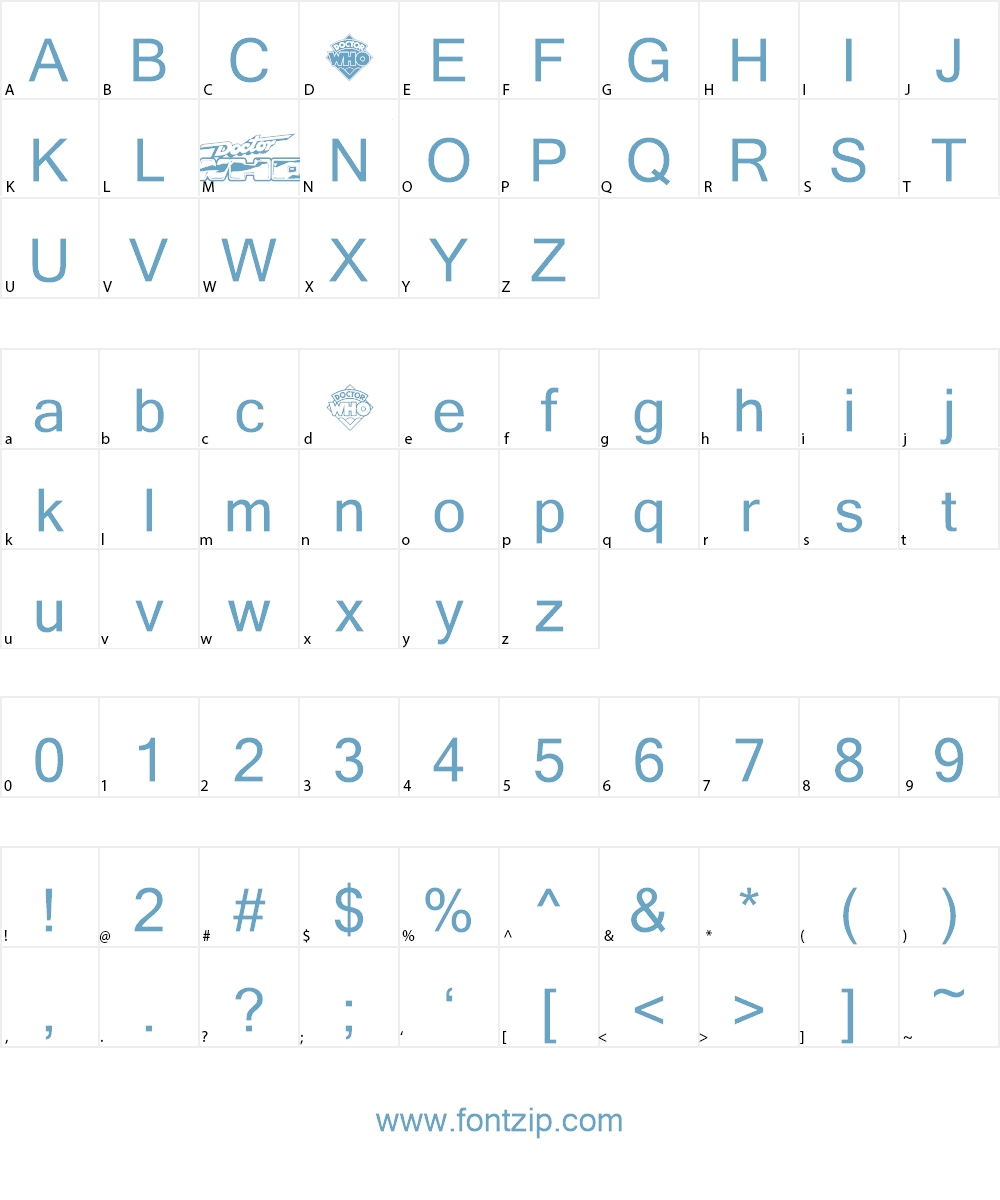
ThetaSigma is a dingbats font which features three variations of the Doctor Who logo. Type 'D' and 'd' for light and dark versions of the seventies 'diamond' logo, and 'M' for the late-eighties 'chrome' logo.